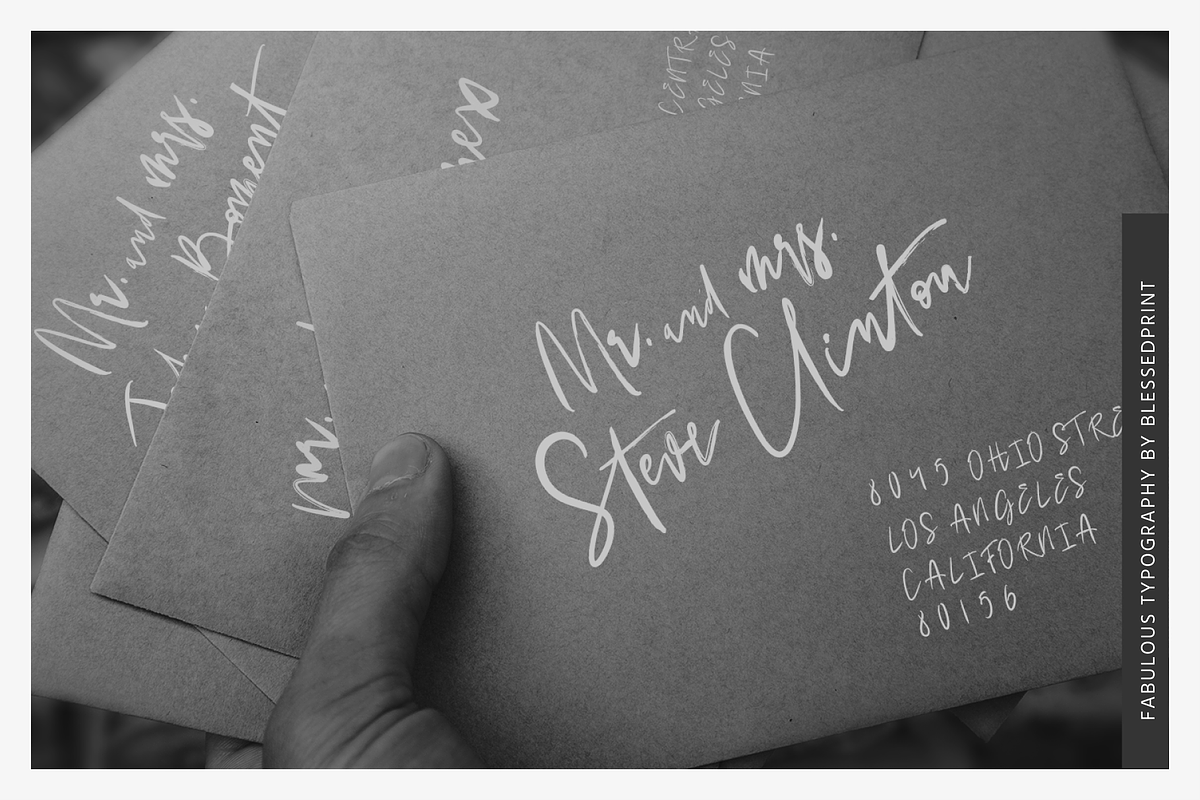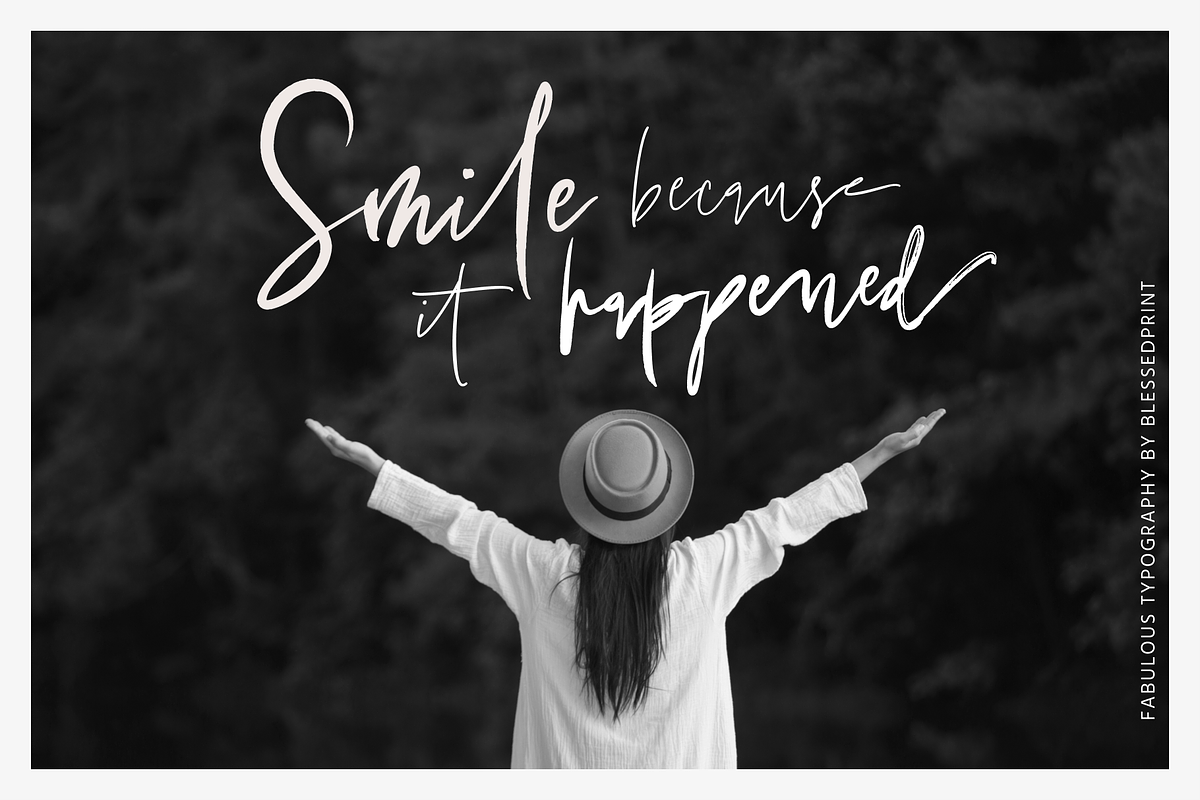
Fabulous Style - Templett & Corjl
Introducing Fab. Style with 150 ligatures by BlessedPrint. A fabulous font with 4 styles (thin, regular, bold & draft) - a beautiful modern calligraphy font with a natural look. Perfect for wedding designers as it comes with extended license. You are welcome to use it for Templett, Corjl, Etsy and other sites.
Fab.Style has a smooth and sketchy look. It can be perfectly combined with each other.
- When you type any word, standard ligatures are used by default
- If you type a1, b1, c1, etc., you will get the stylistic alternative ss01
- Type a2, b2, c2, etc. to apply ss02 (perfect for combining with the letters b, l, t, f, h, k)
- Type a3, b3, c3, etc. to apply ss03 (word endings)
- Type [ any text ] and apply slashes for lowercase letters
- Type A1 to activate swashes for uppercase letters or [A] ( contextual alternate should be on)
- 150+ ligatures
- 1000+ glyphs
- 4 styles (thin, normal, bold & draft)
- 2 full sets for uppercase letters
- 4 full sets for lowercase letters (ss01, ss02, ss03, ss04, ss05)
- Standard ligatures
- PUA (all glyphs have their ascii code)